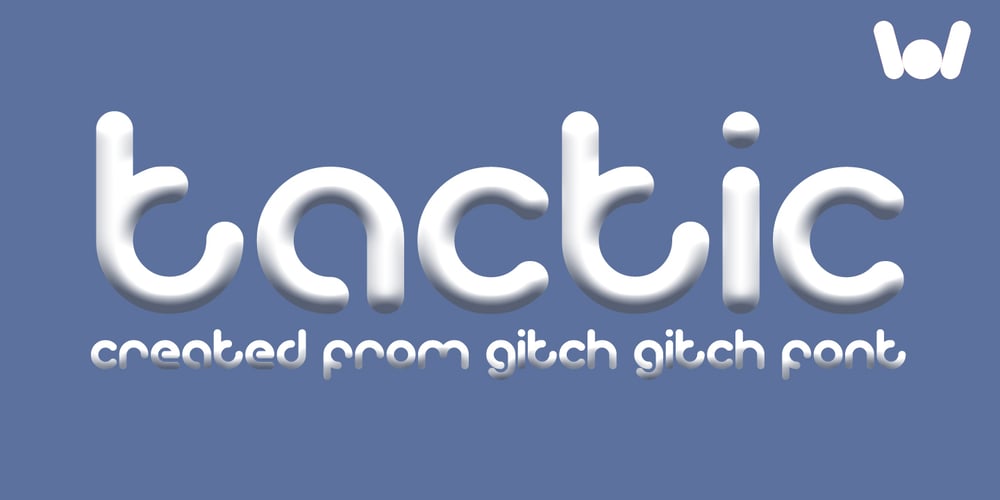
Gitchgitch Font Family was designed by Wino Sutarmin Kadir and published by Weknow. Gitchgitch contains 1 styles and family package options. Give a simple rounded fun groovy, fancy, to any text project. Also good for a logotype or brand name. This is a gift to my graphic designer friend Gita from Indonesia, I call her gitch gitch, so I made it the name on this font.